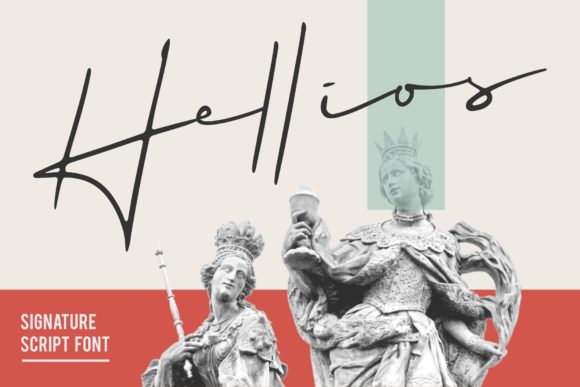
Introducing Hellios Font: The Epitome of Elegance and Authenticity in Handwritten Script
In the realm of digital artistry, where creativity knows no bounds, Hellios Font emerges as a shining beacon of elegance and authenticity. This captivating handwritten script font, meticulously crafted by the talented gaga.vastard, is a testament to the enduring allure of the written word. With its natural ink effect, Hellios breathes life into your digital creations, adding a touch of charm and sophistication that is sure to leave a lasting impression.
Unleash the Power of Expression with Hellios Font
With Hellios Font at your fingertips, you hold the key to unlocking a world of expressive possibilities. Let your imagination soar as you craft personalized signatures that exude individuality and style. Elevate your brand's identity with a logo that speaks volumes about your dedication to excellence. Add a personal touch to your email correspondence, leaving a lasting impression on clients and colleagues alike. Transform ordinary quotes into works of art, inspiring and motivating your audience with the power of words beautifully rendered.
A Font for Every Occasion
Hellios Font's versatility is truly remarkable, adapting seamlessly to a myriad of creative endeavors. Whether you seek to create stunning digital signatures that reflect your unique personality, establish a strong brand identity that resonates with your audience, or add a touch of elegance to your email correspondence, Hellios Font is your perfect companion. Its natural ink effect lends an air of authenticity to your creations, evoking a sense of personal connection that is sure to captivate your readers.
Experience the Beauty of Imperfection
In a world obsessed with perfection, Hellios Font celebrates the beauty of imperfection. Its handwritten nature embraces the subtle variations and irregularities inherent in human penmanship, creating a font that feels both authentic and relatable. With Hellios Font, you can create designs that resonate with your audience on a deeper level, forging connections that transcend the digital realm.
Embrace the Timeless Charm of Handwritten Script
In an era dominated by digital communication, Hellios Font offers a refreshing return to the timeless charm of handwritten script. Its flowing lines and graceful curves evoke a sense of nostalgia and warmth, reminding us of the enduring power of the written word. With Hellios Font, you can create designs that evoke a sense of history and tradition, while simultaneously embracing the modern conveniences of the digital age.